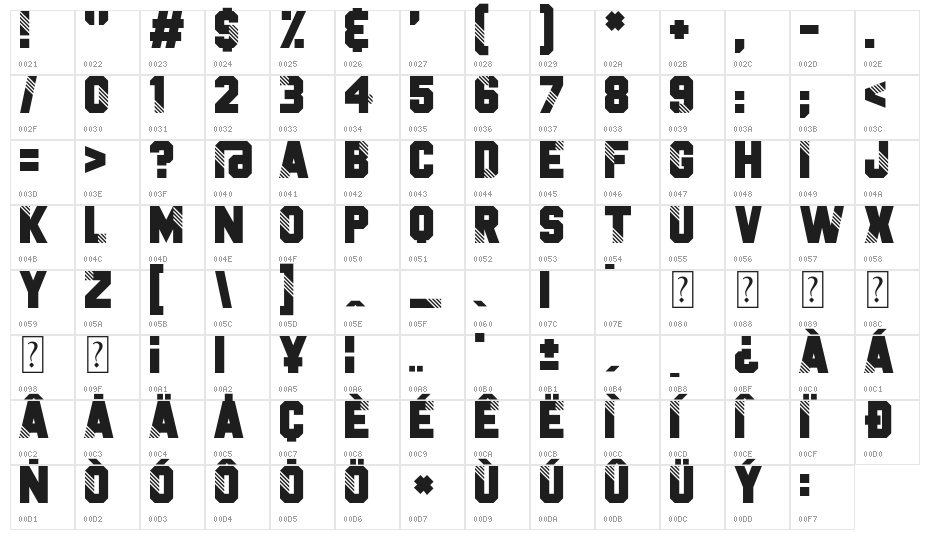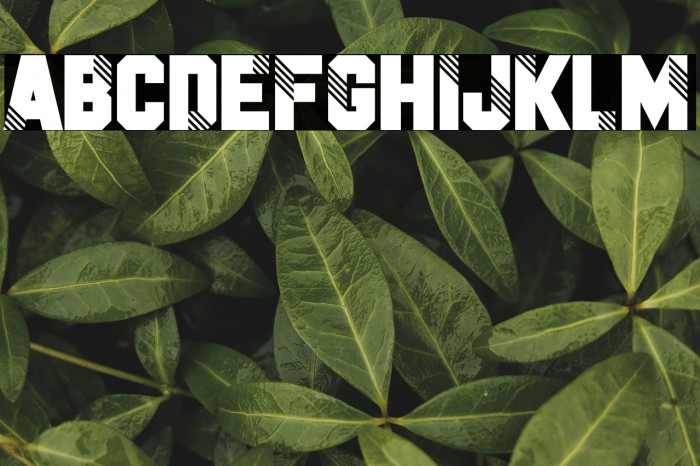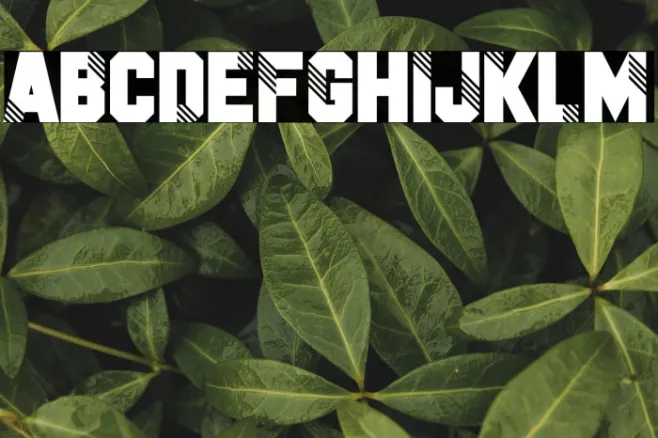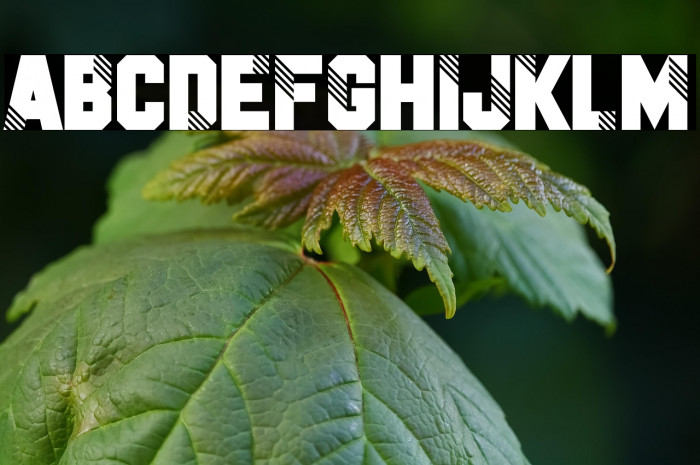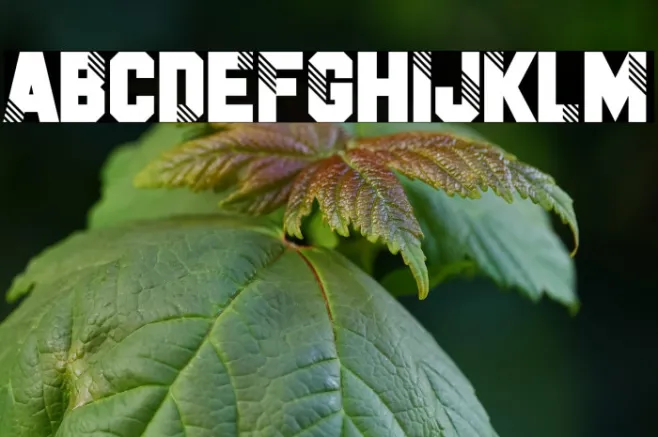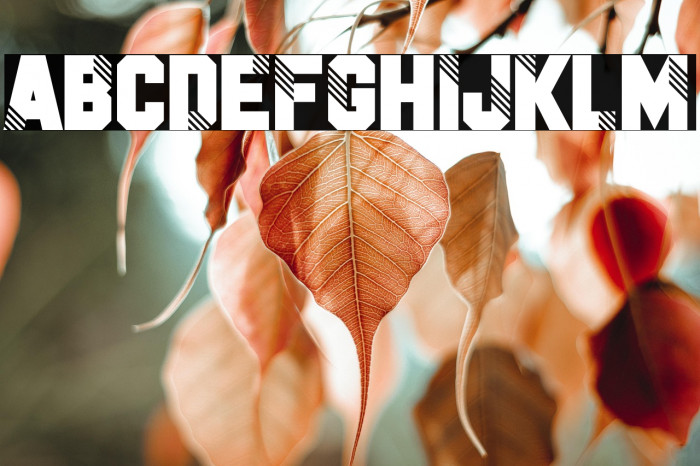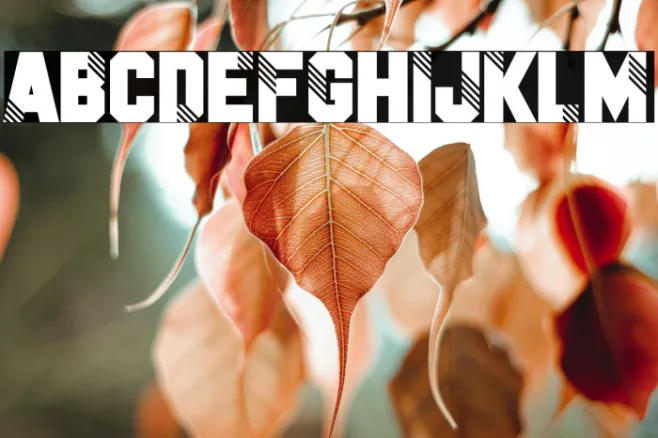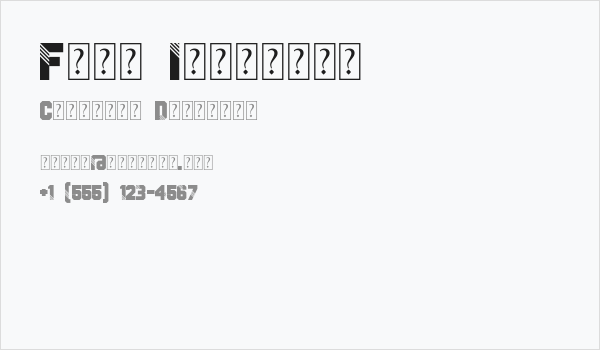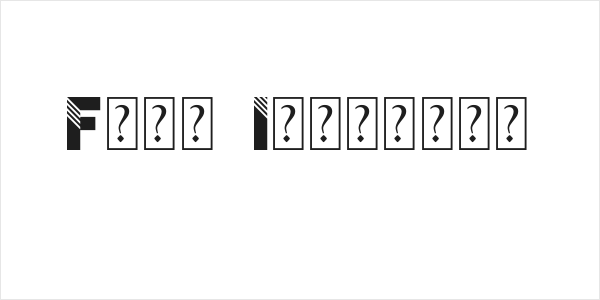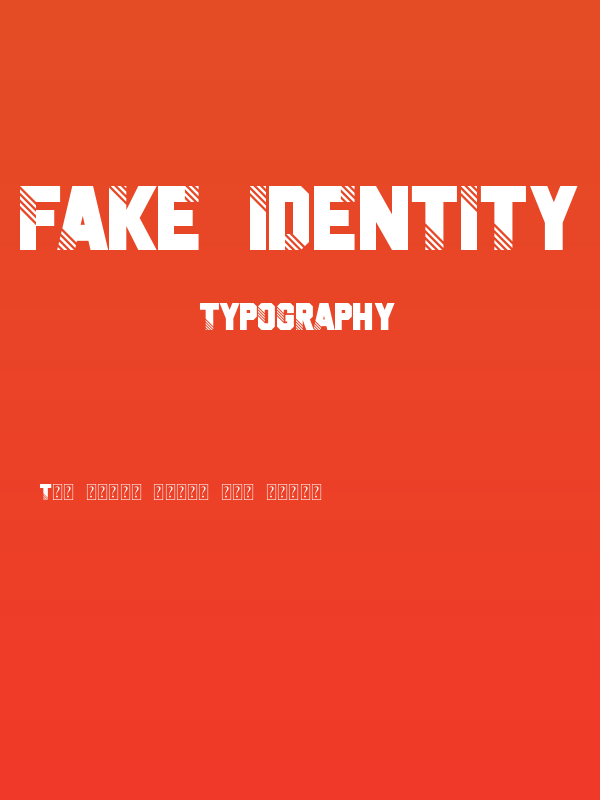
Fake Identity Font
Fake Identity Description
This font features a bold, geometric design with a unique pattern of diagonal stripes cutting through each character, creating a striking visual effect. The uppercase letters are blocky and angular, giving a sense of strength and modernity. The numbers and special characters follow the same design principles, ensuring consistency across all glyphs. The font's distinct style makes it ideal for attention-grabbing headlines and logos, where a bold statement is needed. Its decorative elements add a layer of complexity, making it suitable for creative projects that require a modern and edgy aesthetic.
| Proposed Projects | Ideal for branding, posters, album covers, and any project needing a bold, modern aesthetic. |